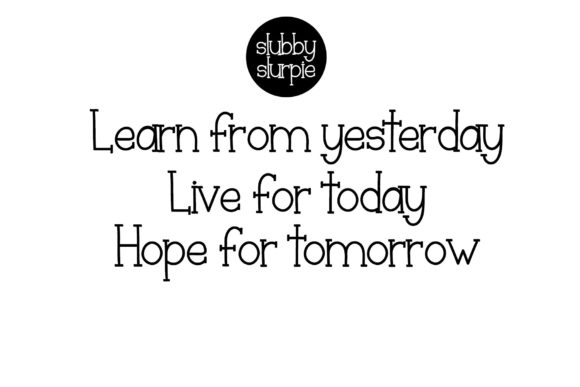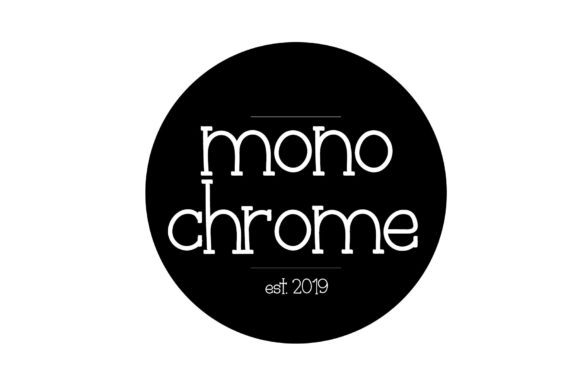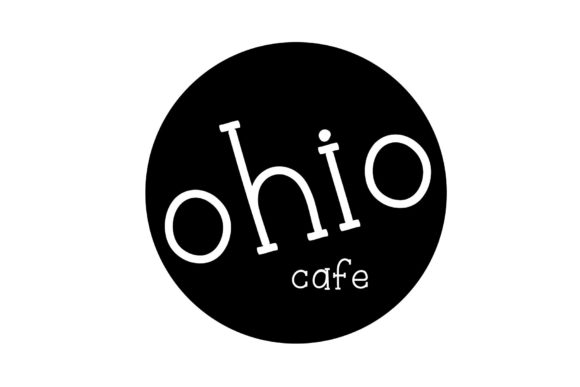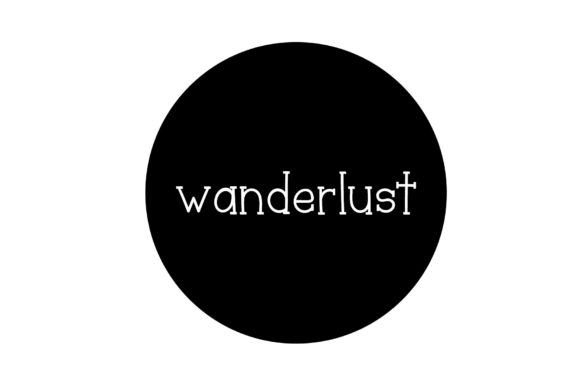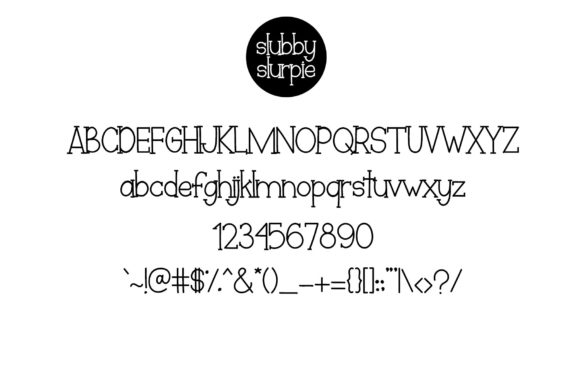
Introduction to Slubby Slurpie Font
You know that moment when you’re brainstorming ideas for a new design project and everything clicks? The font, the color scheme, the layout – it all comes together in perfect harmony. For designers, that ‘aha’ moment is what makes all the hard work worth it. And, trust us, we’ve got just the thing to help you get there: the Slubby Slurpie Font.
This simple yet stylish slab serif font is the perfect addition to any creative project. Whether you’re working on a logo, a social media post, or a souvenir design, the Slubby Slurpie Font adds a touch of high-quality style that’s sure to impress. And the best part? It’s available as a free download, making it an invaluable resource for designers on a budget.
Key Features of Slubby Slurpie Font
- High-quality design resource perfect for creative projects, available for free download
- Unique, slubby texture effect that adds a fun and playful touch to any design
- Perfect for use in digital design, including web graphics, social media, and print materials
Honest Review: Slubby Slurpie Font
I recently had the chance to work with the Slubby Slurpie Font, and I must say it’s been a game-changer for my creative projects. This design resource is perfect for anyone looking to add a playful touch to their work. The font is available for free download, which is a huge plus in my book.
- What works well: The Slubby Slurpie Font is incredibly versatile and can be used for a wide range of creative projects, from branding to signage. The font is also highly customizable, allowing you to adjust the size, color, and style to fit your needs.
While the Slubby Slurpie Font is an amazing resource, there are a few limitations to keep in mind. ⚠️ For one, the font may not be suitable for use in professional settings where a more formal font is required. Additionally, the font’s playful nature may not be suitable for all types of creative projects.
Overall, I’m thoroughly impressed with the Slubby Slurpie Font. It’s a high-quality design resource that’s perfect for anyone looking to add a little fun and personality to their creative projects. With its versatility, customizability, and ease of use, I highly recommend giving it a try.
Tips for Getting the Most Out of Slubby Slurpie Font
For the best results, use the Slubby Slurpie Font in conjunction with other design elements, such as bold colors and playful graphics. Experiment with different font sizes and styles to add visual interest to your design. With a free download available, you can try out the Slubby Slurpie Font on your next creative project.
Common Use Cases for Slubby Slurpie Font
The Slubby Slurpie Font is perfect for designing invitations, social media graphics, and other creative projects where a unique and playful touch is needed. With its high-quality design and transparent background, this font is a valuable resource for designers and creatives of all levels.